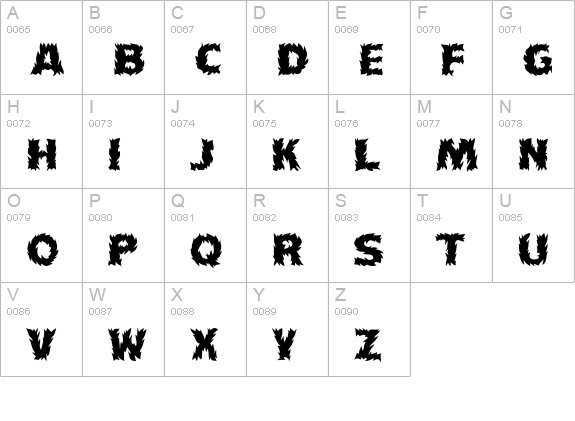
Flames MF Font Details
Flames MF is a bold and eye-catching display font that exudes power and energy. With its fiery design and sharp edges, this font is perfect for making a statement in your projects. Whether you're looking to add a touch of drama to your designs or create a striking headline, Flames MF is sure to grab attention. Best of all, this font is available for free download at FontsMarket.com, making it easily accessible for all your creative needs. Get your hands on Flames MF today and let your designs burn bright with style.